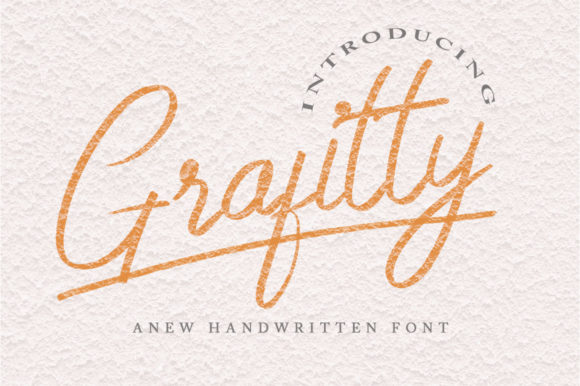
Immerse yourself in the realm of exquisite lettering with Grafitty Font, a script masterpiece crafted by the visionary artist indrotanwijoyo. This captivating font, meticulously designed to evoke a sense of charm and elegance, will transform your creative projects into captivating expressions of art.
Step into a world where your words dance with undeniable allure, guided by the enchanting strokes of Grafitty Font. Its beautiful, flowing characters possess an innate ability to elevate even the simplest of messages into unforgettable statements. Whether you're crafting heartfelt invitations, designing eye-catching posters, or adding a touch of magic to your social media posts, Grafitty Font is the perfect companion.
With its diverse range of applications, Grafitty Font effortlessly adapt to your creative vision. Its versatility shines in both digital and print media, making it a must-have tool for graphic designers, content creators, and social media managers. Transform bland words into captivating stories, and watch as your audience embraces the beauty of your creations.
Let Grafitty Font ignite your imagination and inspire you to new heights of creativity. Its timeless charm will leave a lasting impression on all who encounter it. Embark on a journey of visual storytelling and captivate your audience with Grafitty Font's enchanting allure.